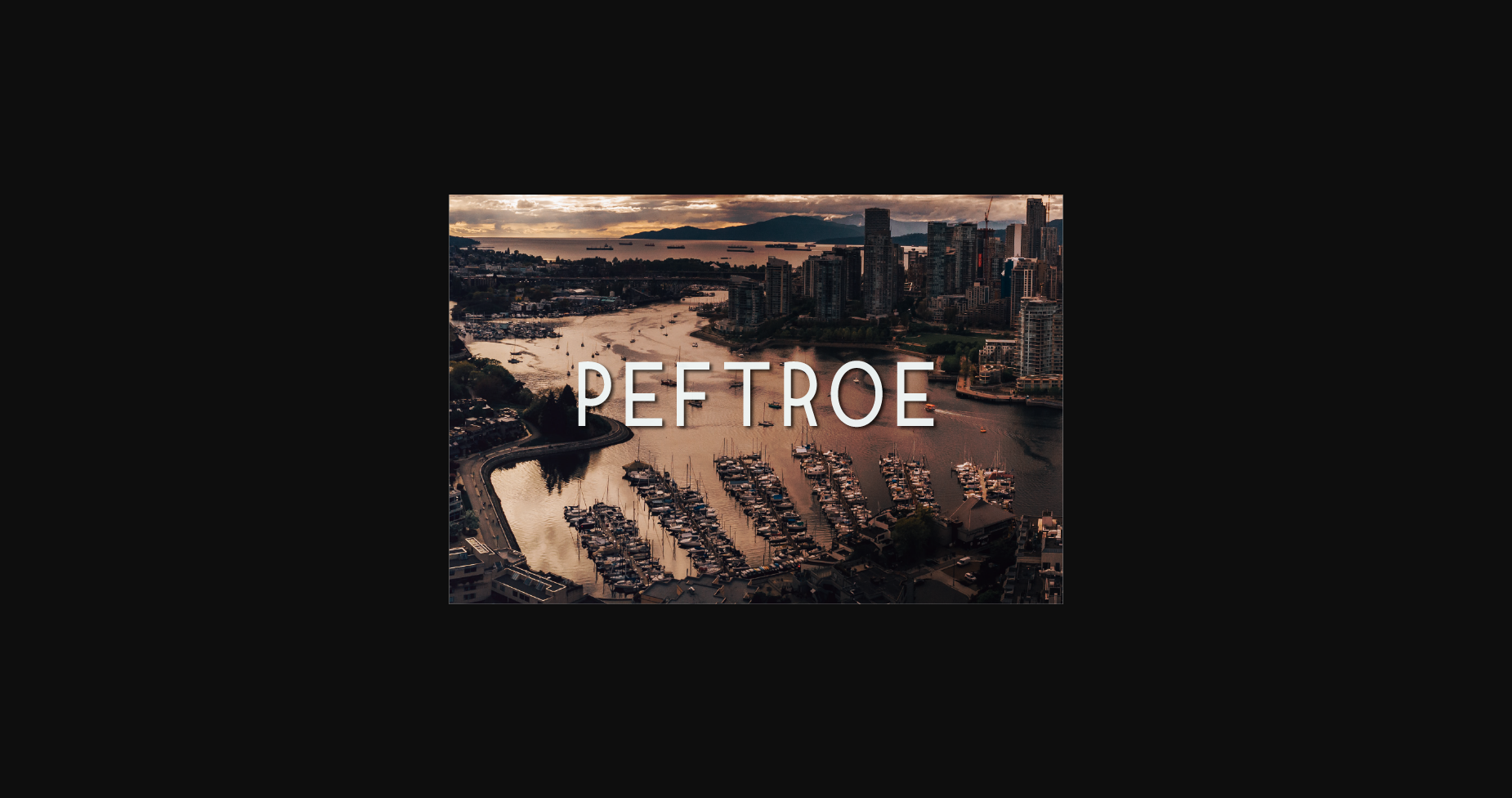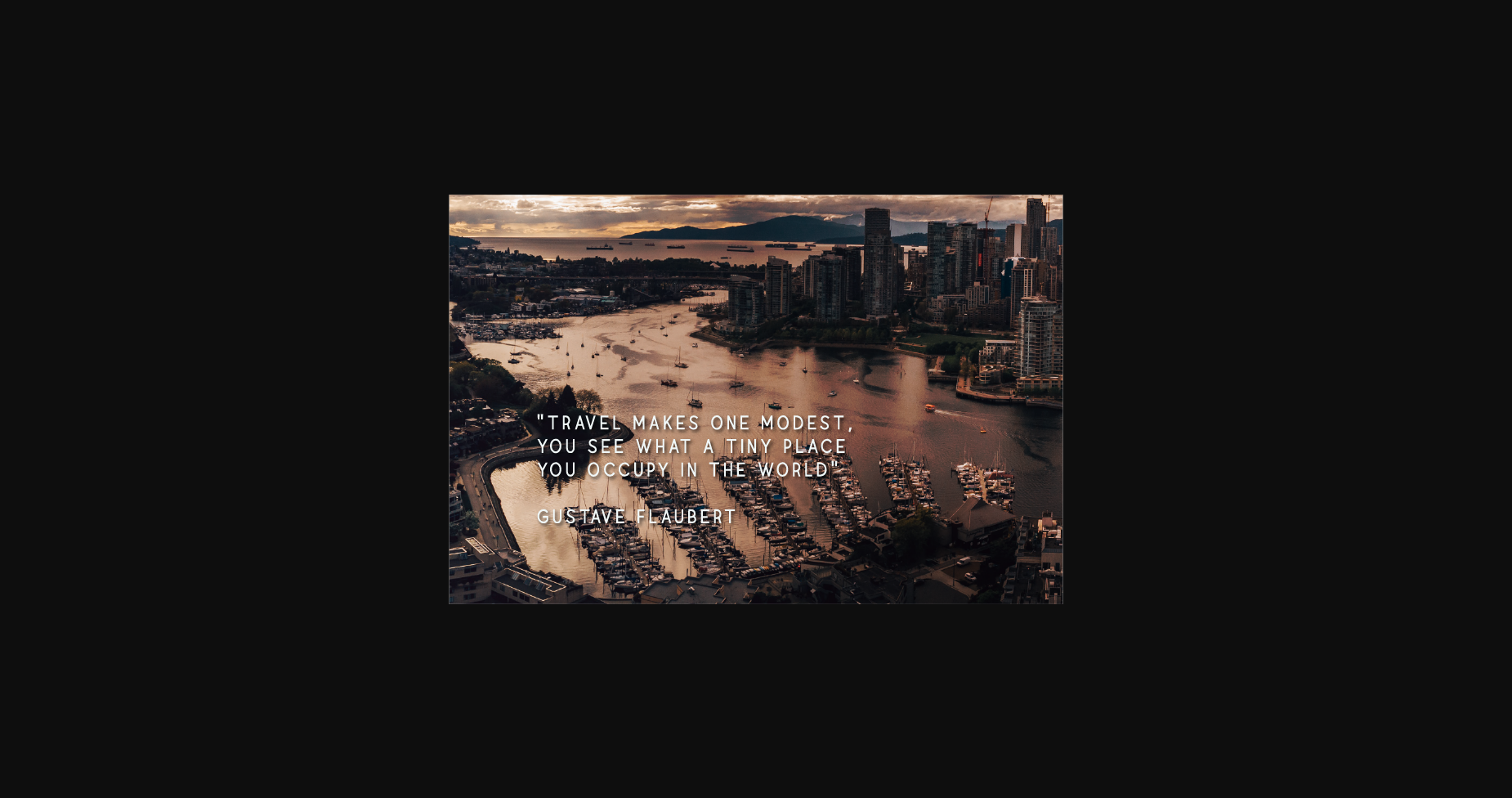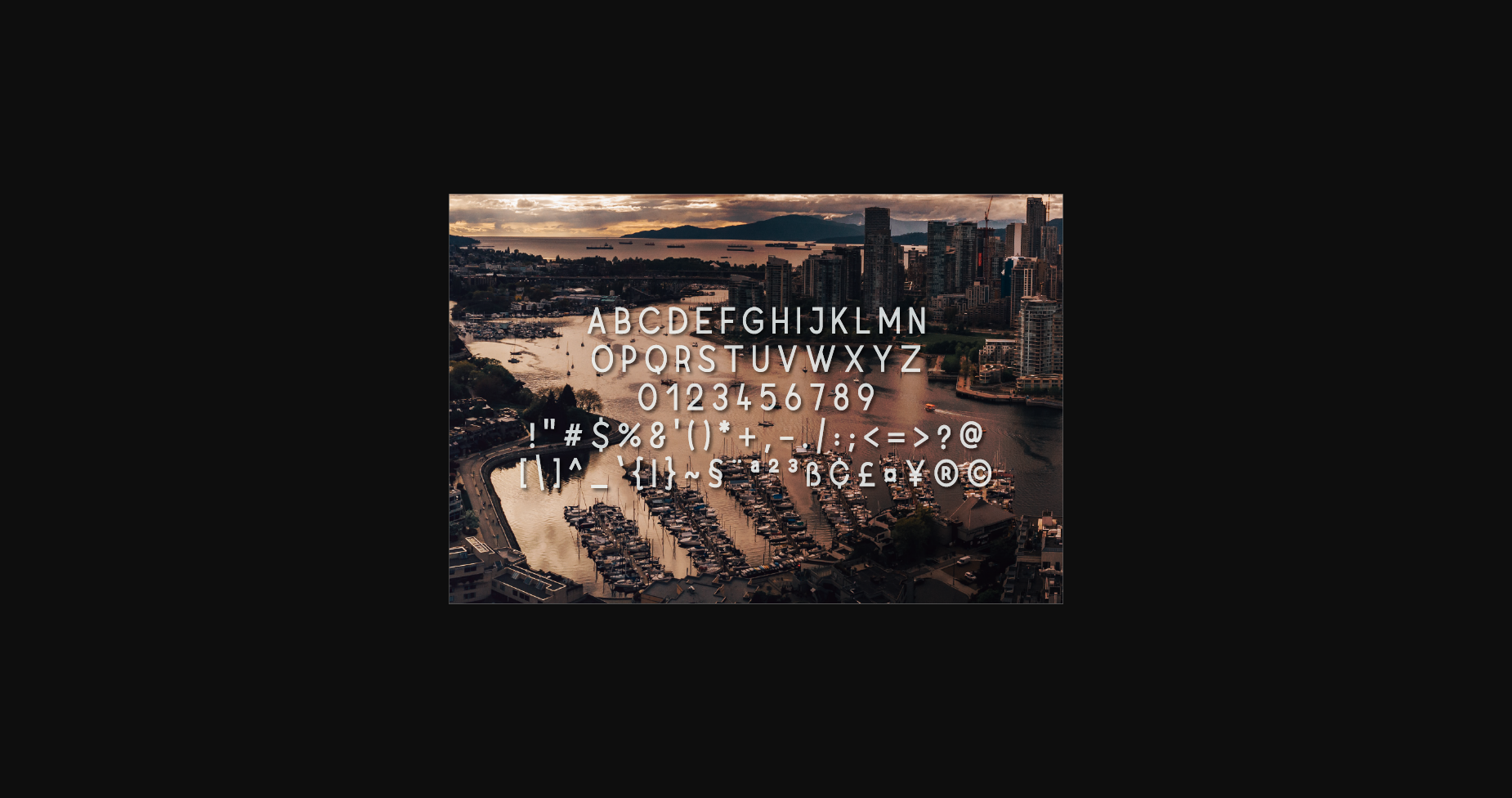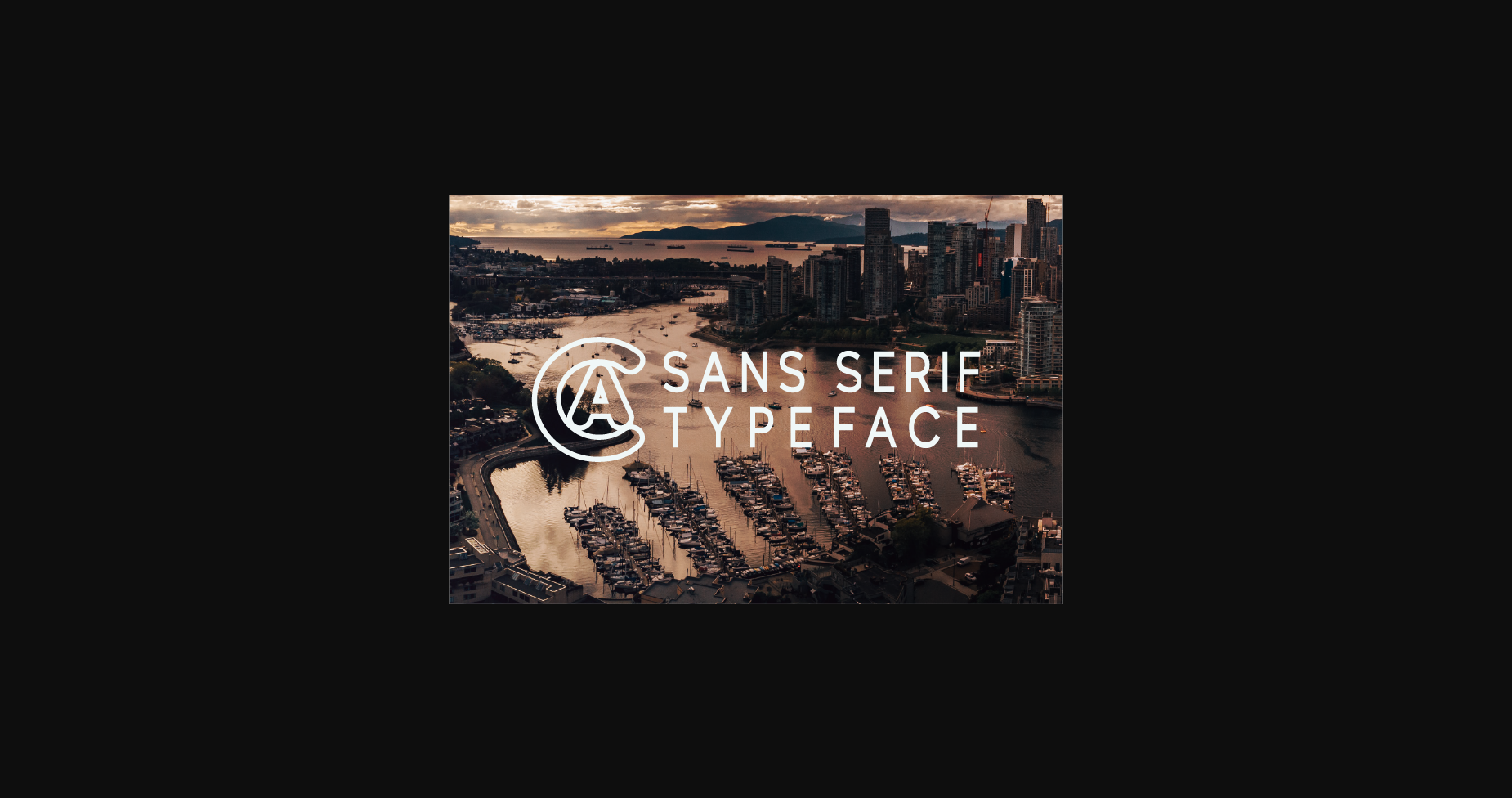
HomeSans Serif FontsPeftroe Font Sans Serif Fonts Peftroe Font FacebookXPinterestWhatsApp 1 of 6 ... Peftroe Font Poster 2... Peftroe Font Poster 3... Peftroe Font Poster 4... Peftroe Font Poster 5... Peftroe Font Poster 6... About Peftroe Font Peftroe is a minimal and neat sans serif font. This font is ideal for writing web designs, business cards, or pretty much anything else that requires a unique touch. DOWNLOAD NOW People also explored Valentine Font Kangchen Font Phroys Font Ismelda It is Definitely Possible Font Guide Lovely Font Milos Font Dry Cleaners Skyline Adventure Duo Font 293 0 TagsPeftroePeftroe Font Previous articleHolfetry FontNext articleLeomoth Font LEAVE A REPLY Cancel reply Comment: Please enter your comment! Name:* Please enter your name here Email:* You have entered an incorrect email address! Please enter your email address here Website: Save my name, email, and website in this browser for the next time I comment. Personal Use Free Rozalyn Personal Use Free Read more about this font Bosk Personal Use Free Read more about this font Rhetorical Personal Use Free Read more about this font Neuropol Personal Use Free Read more about this font BLOG 5 Fonts That Will Dominate Design Trends in 2026 5 Fonts for 2026 That Will Dominate Design Trends Typography plays a critical role in visual communication, and as we look ahead to 2026, it’s... Modern Sans-Serif Fonts That Brands Love in 2025 Free vs Paid Fonts: Why Investing in Premium Fonts Is Worth It Top 10 Handwritten Fonts That Elevate Your Designs